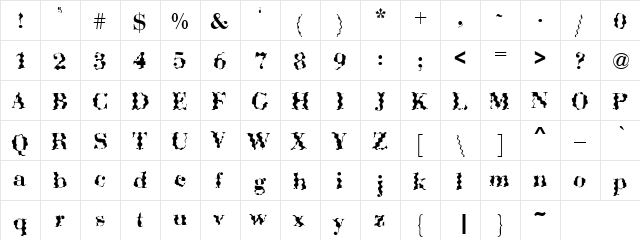
Liquify Regular
Design Context for Liquify Typeface
Liquify is a composed and adaptable typeface that performs quietly and consistently across a wide range of design contexts.